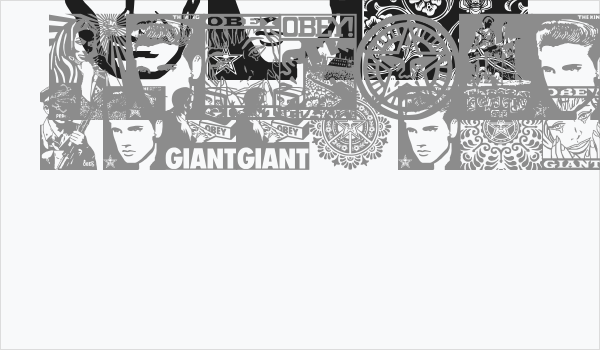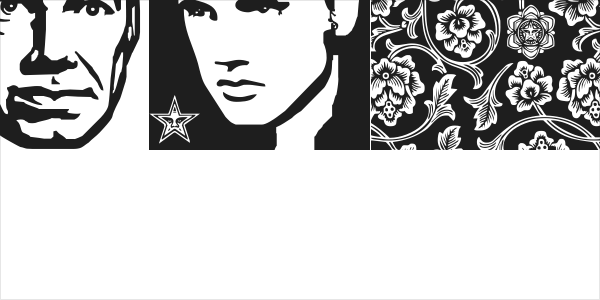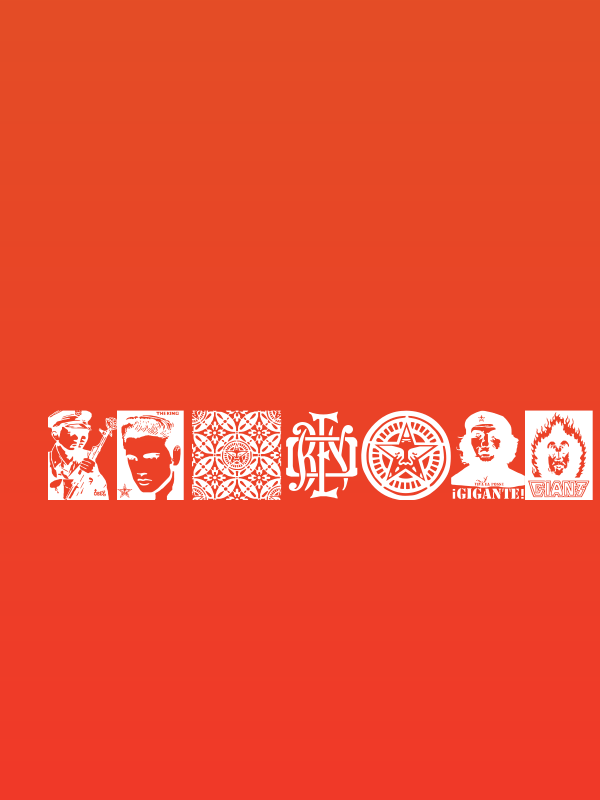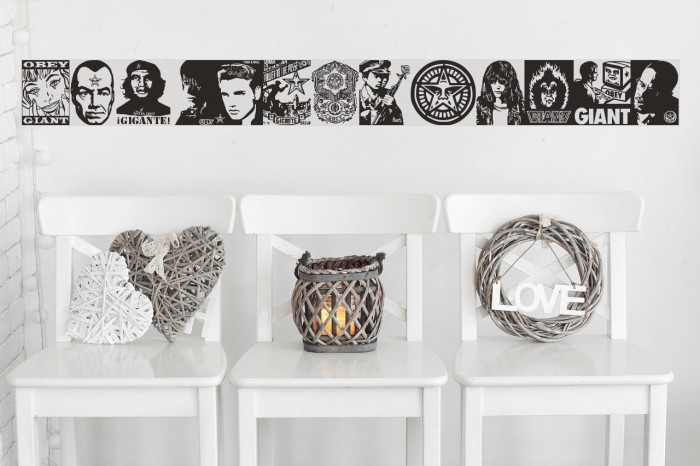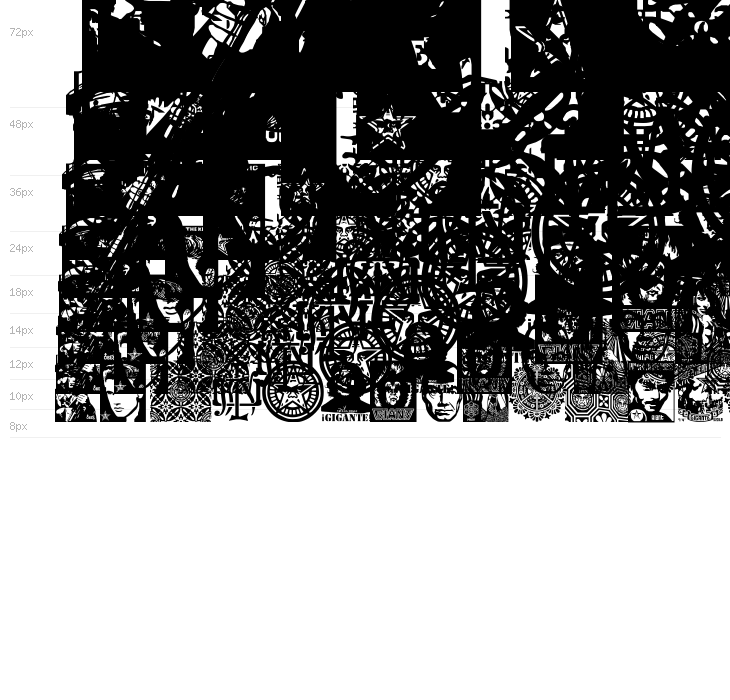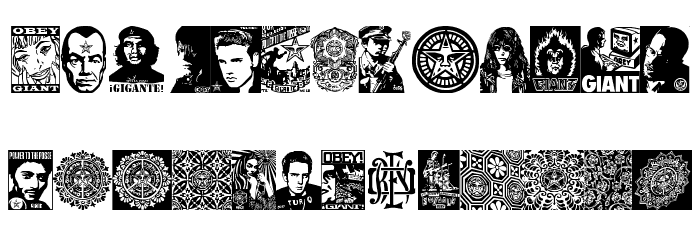
ObeyXL2 Font
ObeyXL2 Description
Highly decorative and illustrative font composed of detailed graphic images, including portraits, patterns, and iconic motifs, with each character represented by a unique artwork rather than traditional letterforms.
| Overall Style | Decorative, Urban, Artistic |
| Use Case | Headlines, Logos, Posters, Artistic projects |
| Proposed Projects | Posters, album covers, street art, event promotions, editorial headlines, branding for creative industries. |